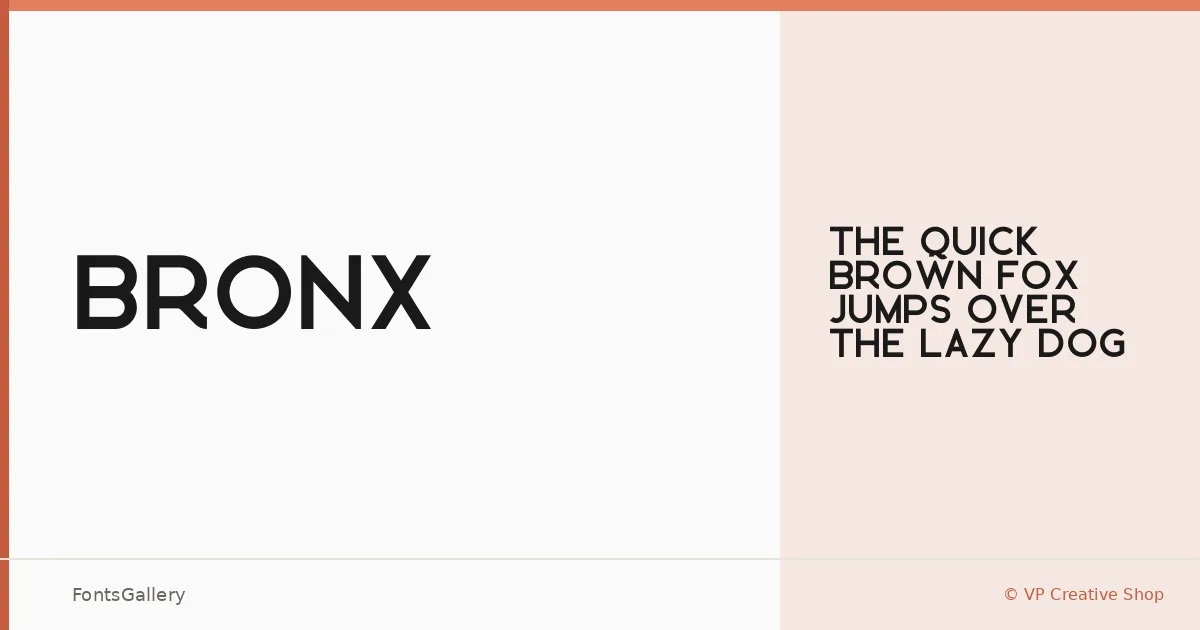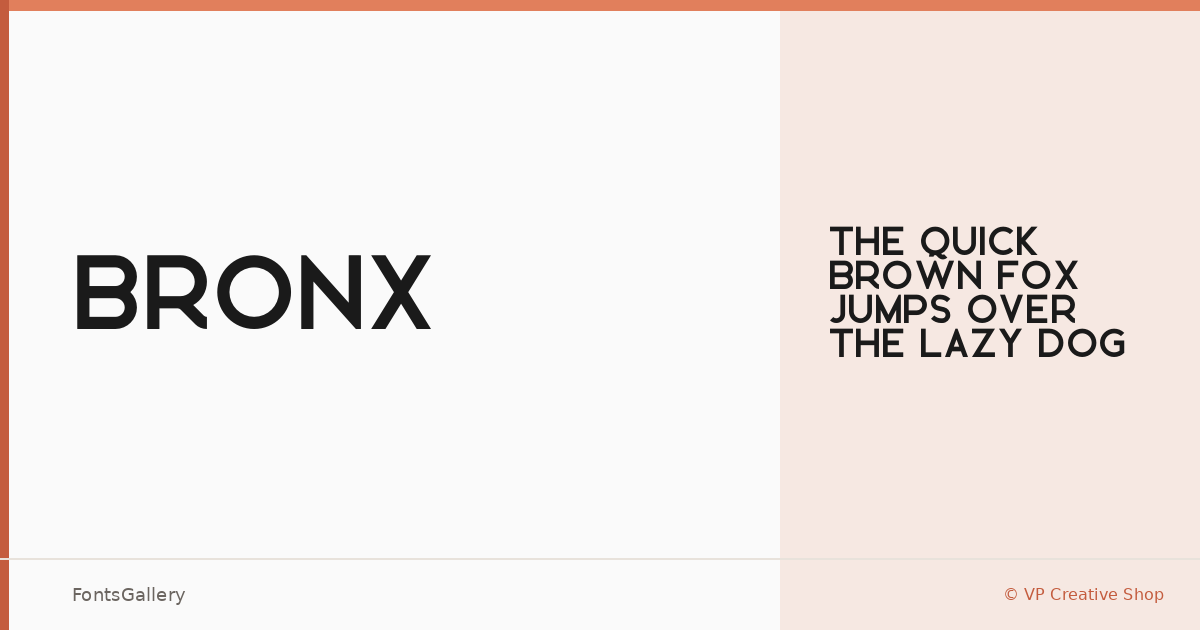
About Bronx Font
There is a deliberate weight to these letters — a structural confidence that reads immediately at large sizes without resorting to decoration. Bronx is a single-cut sans serif designed by VP Creative Shop, available as a Regular in OTF format. The forms sit in minimal, modern territory: clean geometry held together with professional restraint.
The typeface carries a bold, stripped-back character that suits environments where impact matters more than nuance. As a single Regular weight, it commits fully to one point on the spectrum — this is not a family built for running text or tonal variation, but for moments where a headline or mark needs to land clearly and hold its ground. The Latin character set is partial, so it covers standard Western European copy without claiming broader language reach.
It earns its keep in branding systems, logo lockups, poster headlines, and signage — anywhere the type itself functions as visual architecture rather than a reading aid. For contrast, it pairs well with Canela's editorial serif warmth or the fluid script energy of Armelie. 321 Impact, ABC Arizona, and Kactigona offer alternative directions depending on whether you need more weight, refinement, or geometry alongside it.